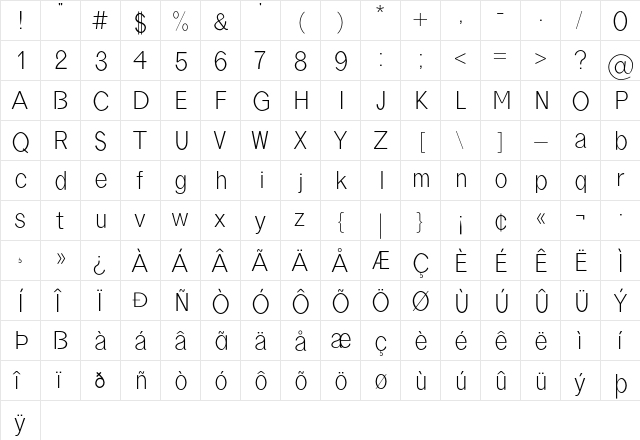
borneo Regular
| Designer | chaplin |
Design Context for borneo Typeface
borneo offers clean, dependable letterforms without strong stylistic allegiance, making it a practical choice for designers who need flexibility.